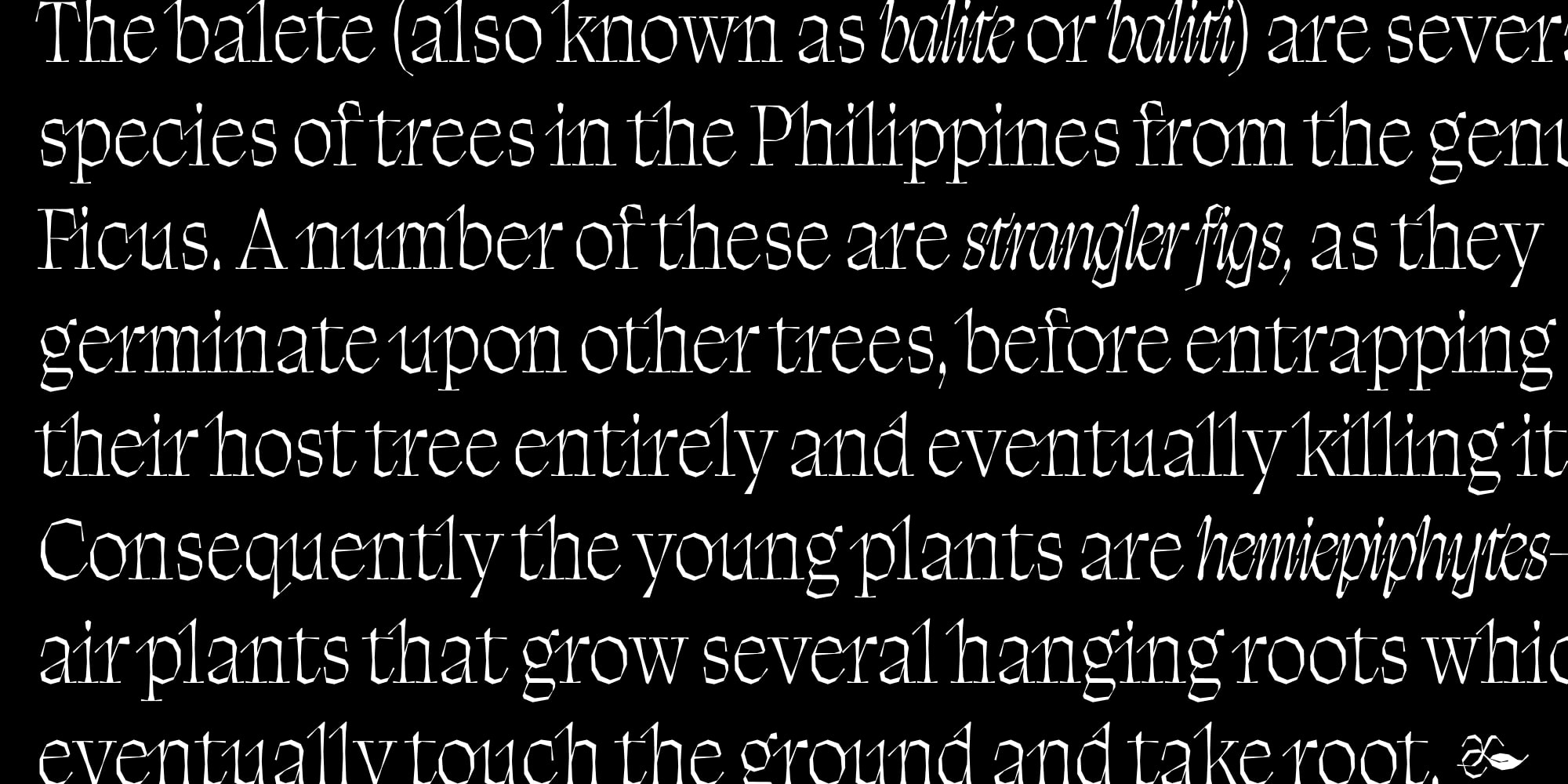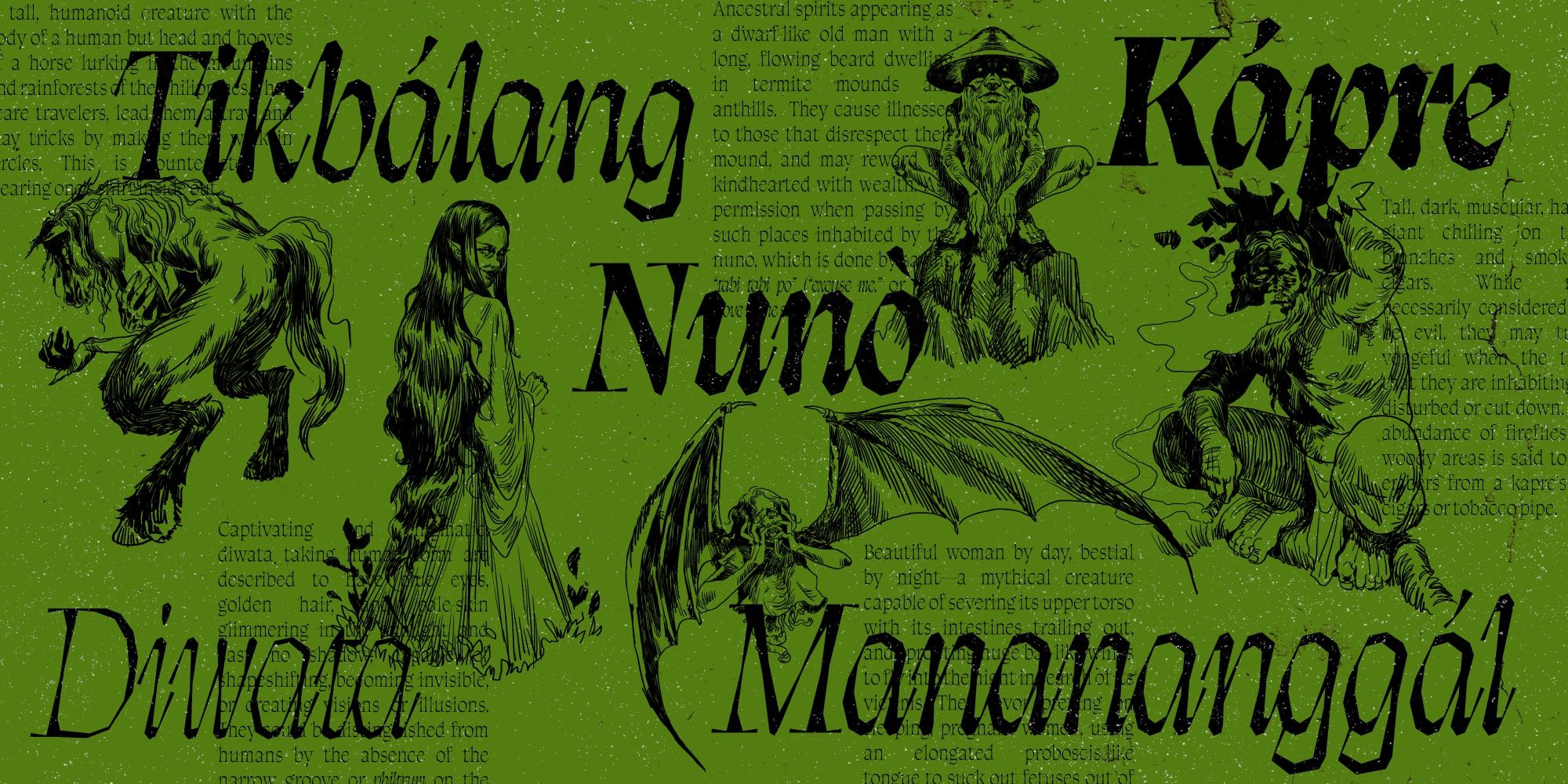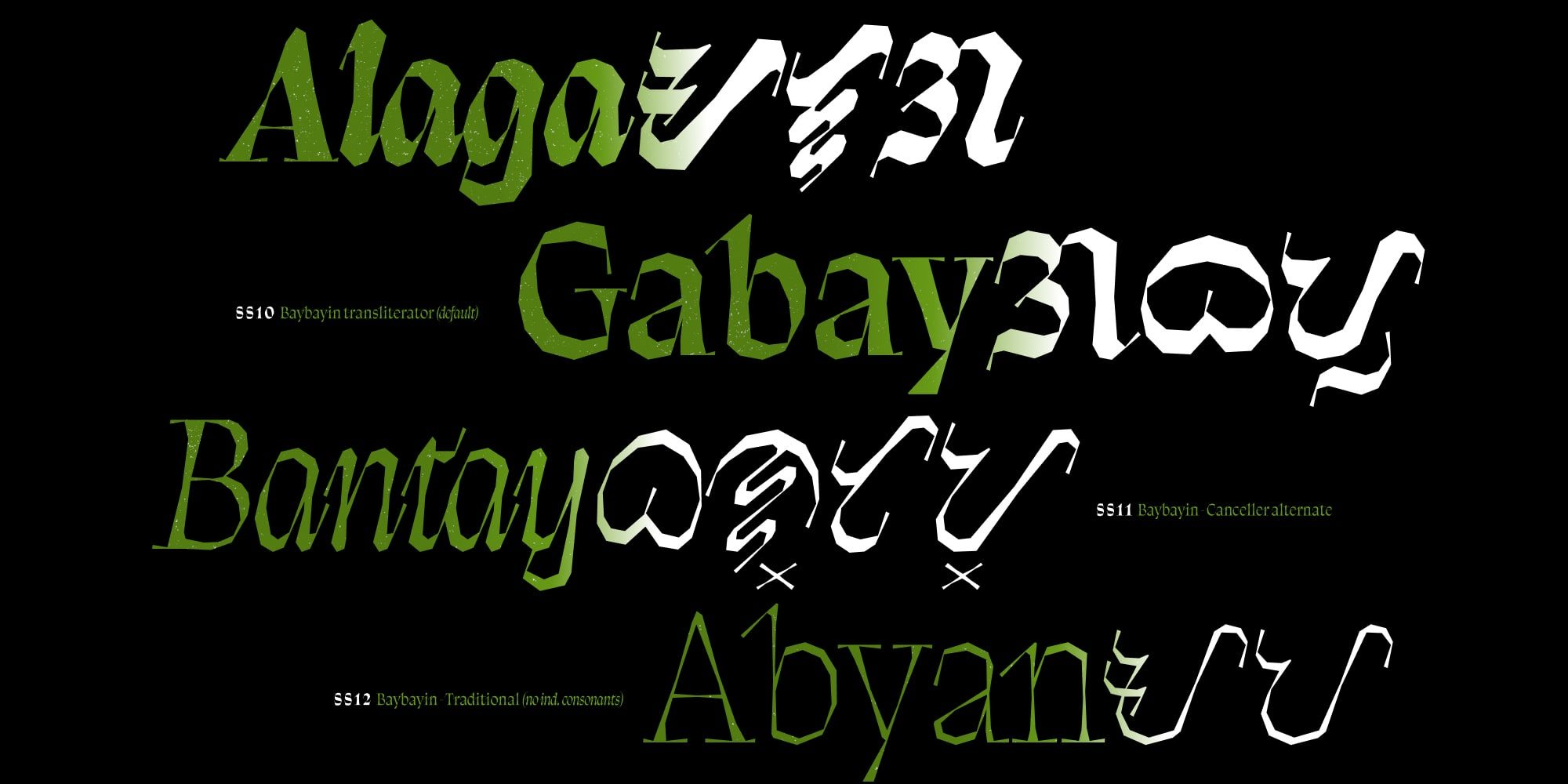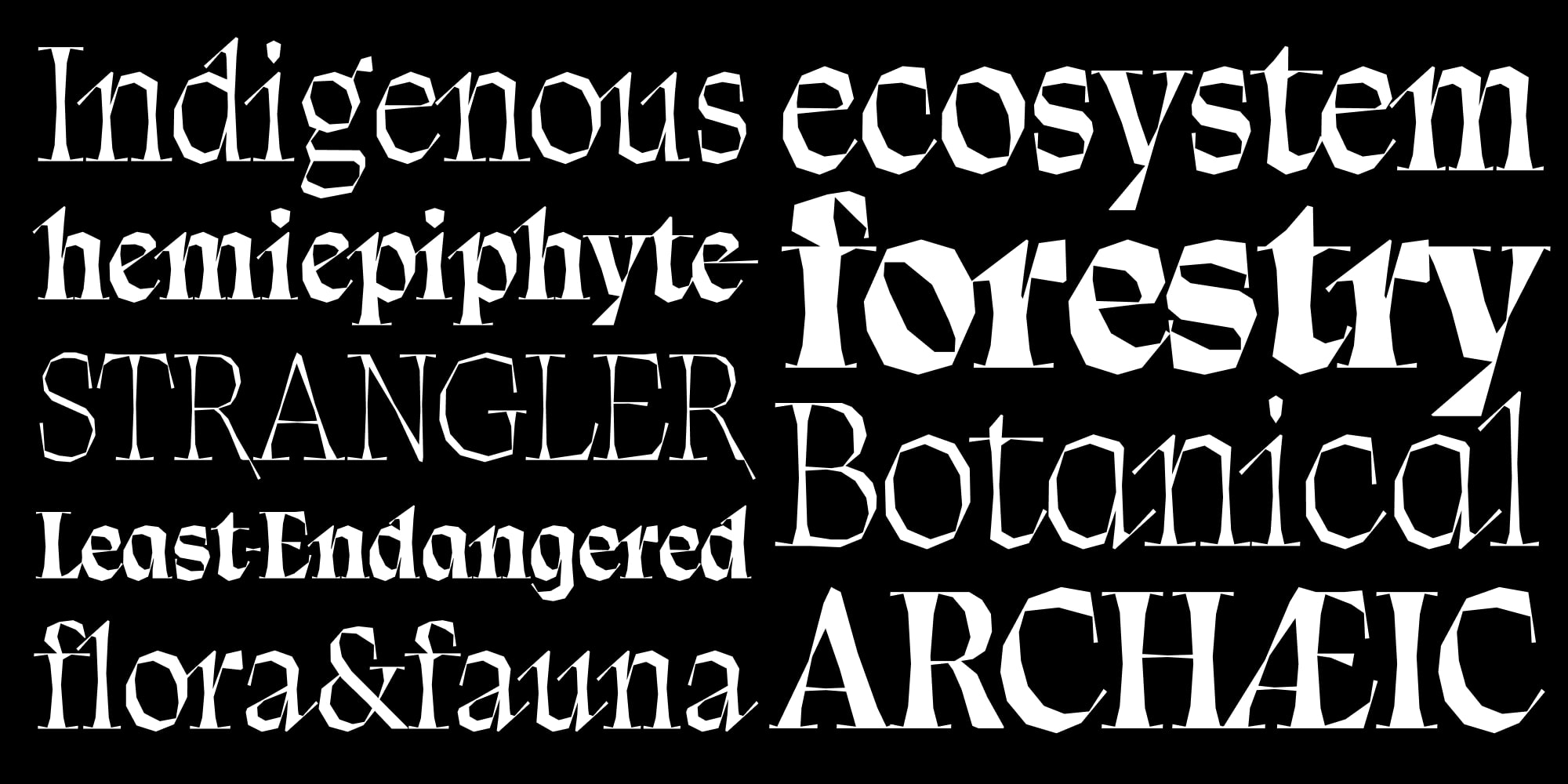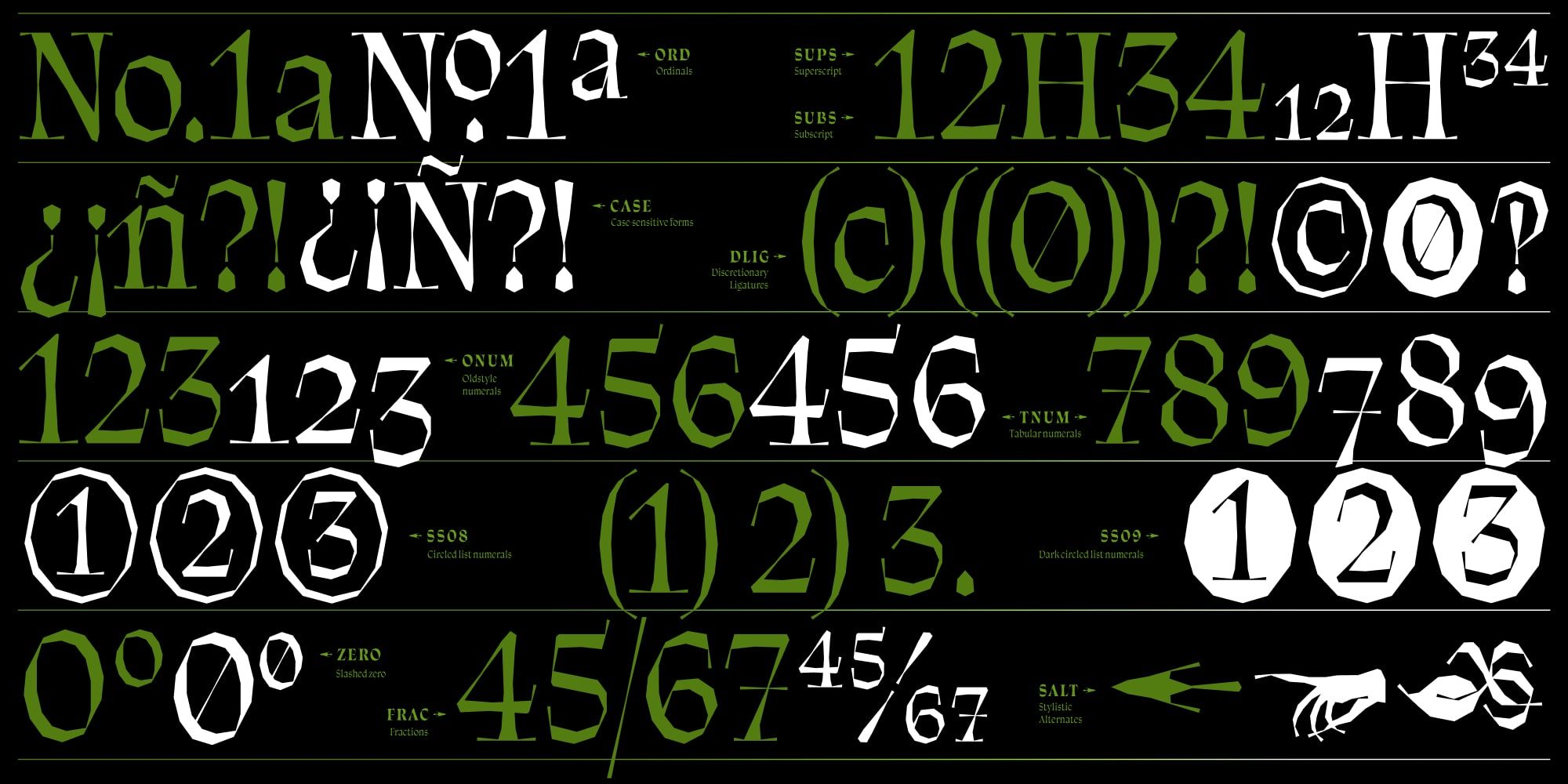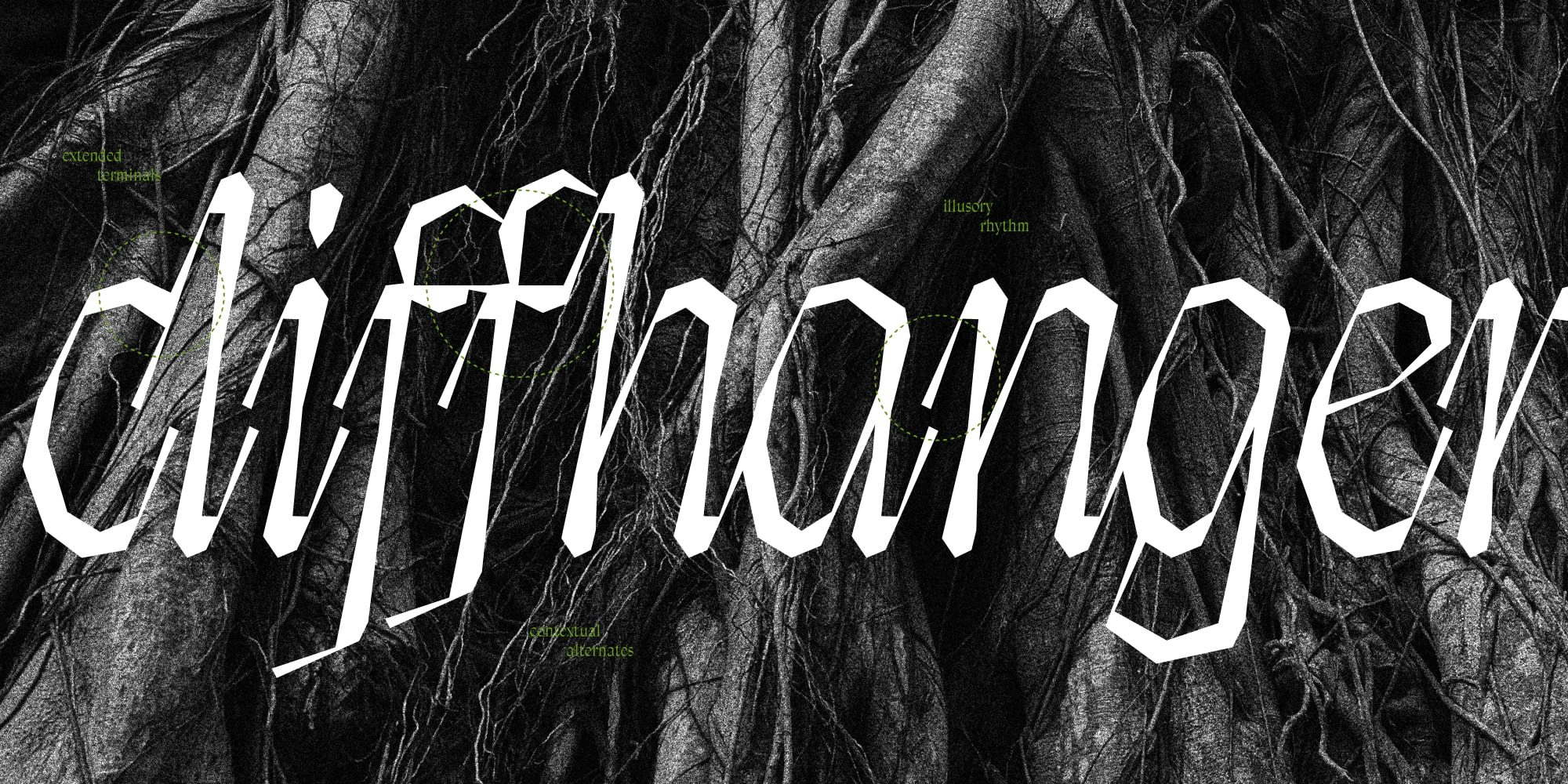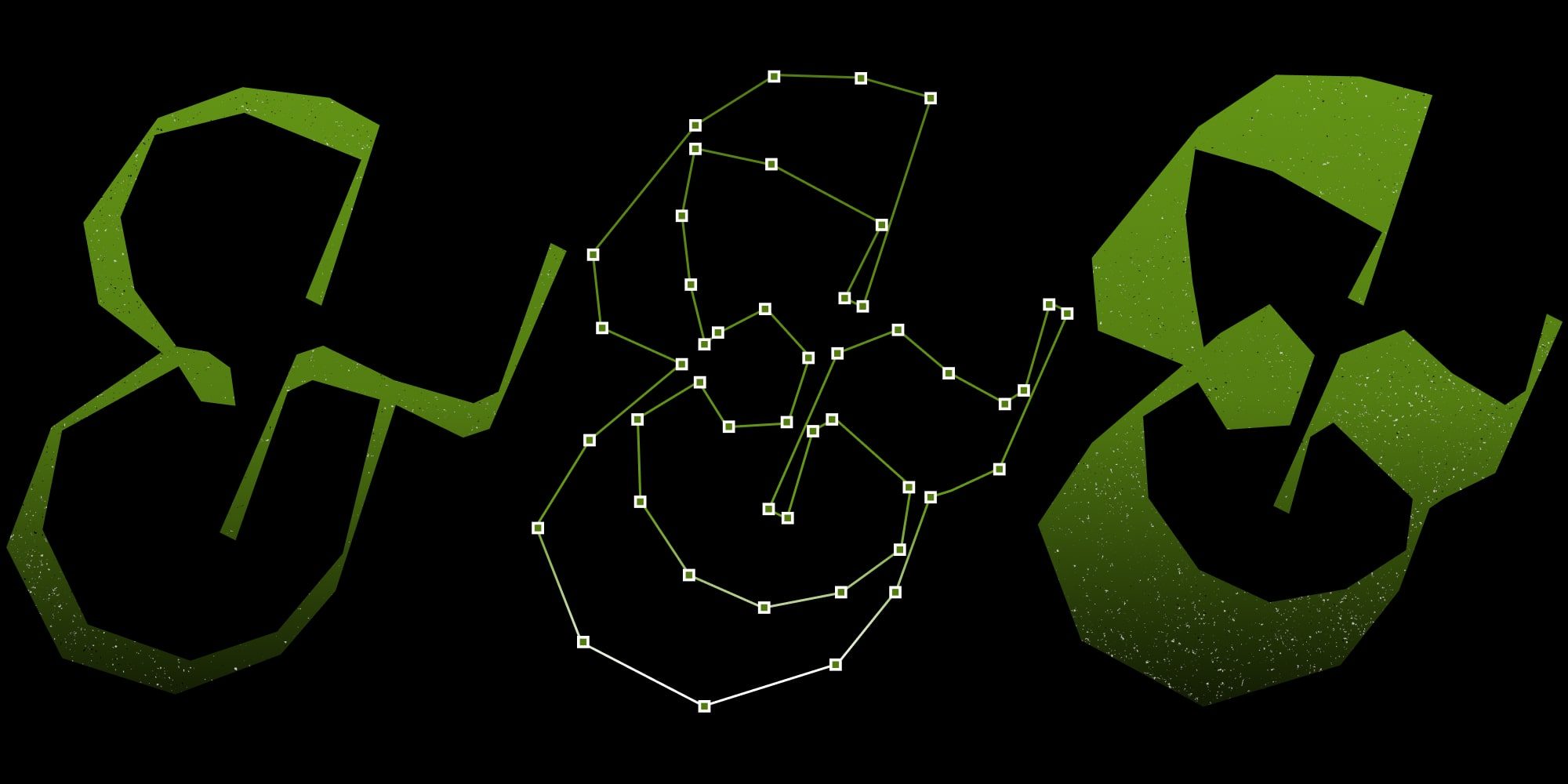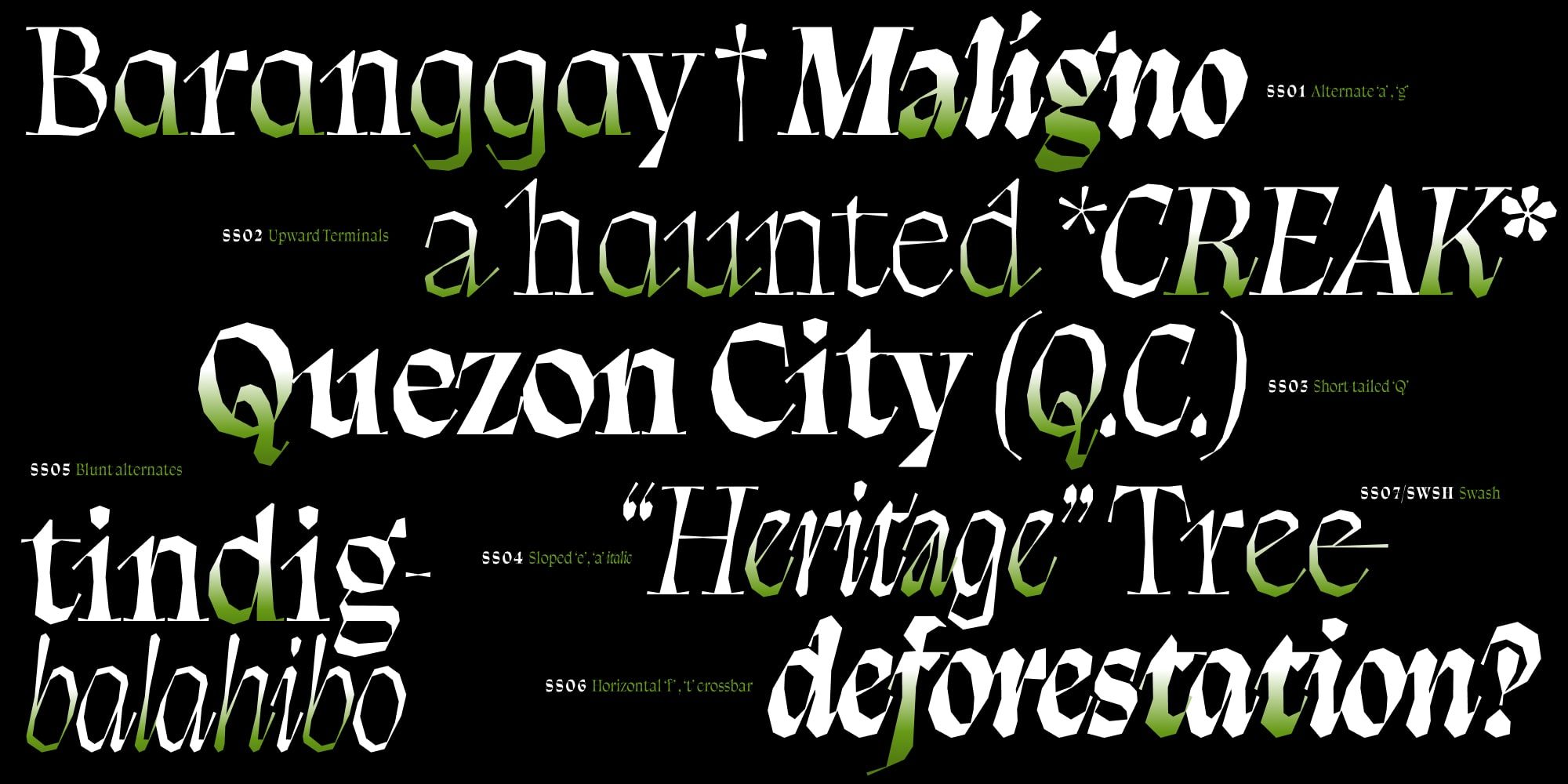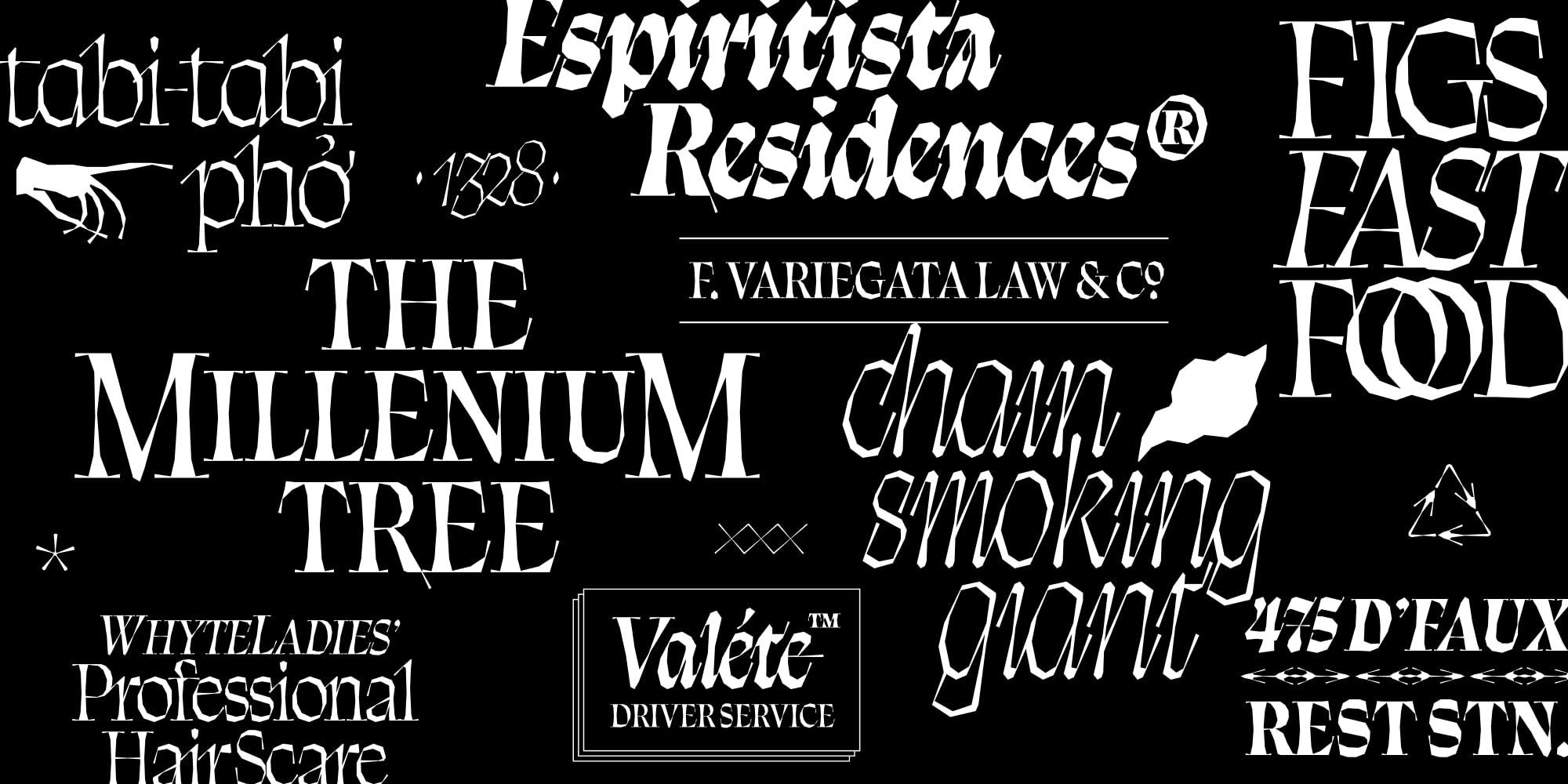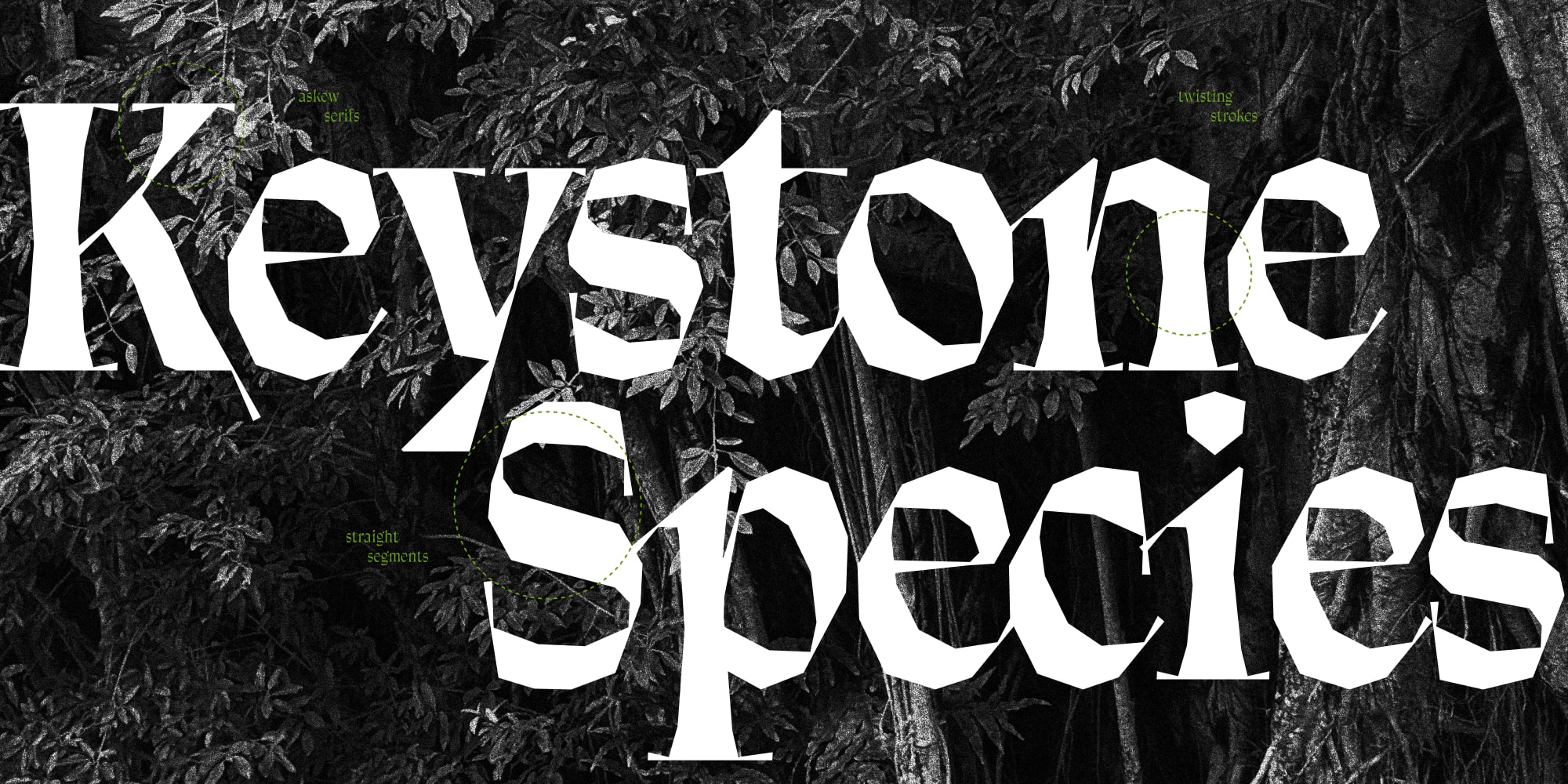
Balete
Balete is a typeface evoked by the eerie structure of the native balete tree, infamous in Philippine folklore for being a dwelling place of supernatural beings. Characterised by dangling roots which the hemiepiphytic species uses to strangle and eventually consume its host tree victim, the letterforms feature creeping, slender terminals that emerge from twisting stems, wrought from the illusion of fluid calligraphy without the presence of a single curved line.
With various spirits in local mythology said to inhabit its hollows, from faint apparitions to hefty chain-smoking giants, the type family consists of distinctly drawn Roman and Italic styles ranging from the hypnotic Thin to charismatic Black weights.
Just as its monstrous growth and enchanting tales quell humans from tearing down its old-growth roots, Balete is beguiling enough to tell hauntingly spellbinding stories and reside in compositions begging for a bit of mystique.